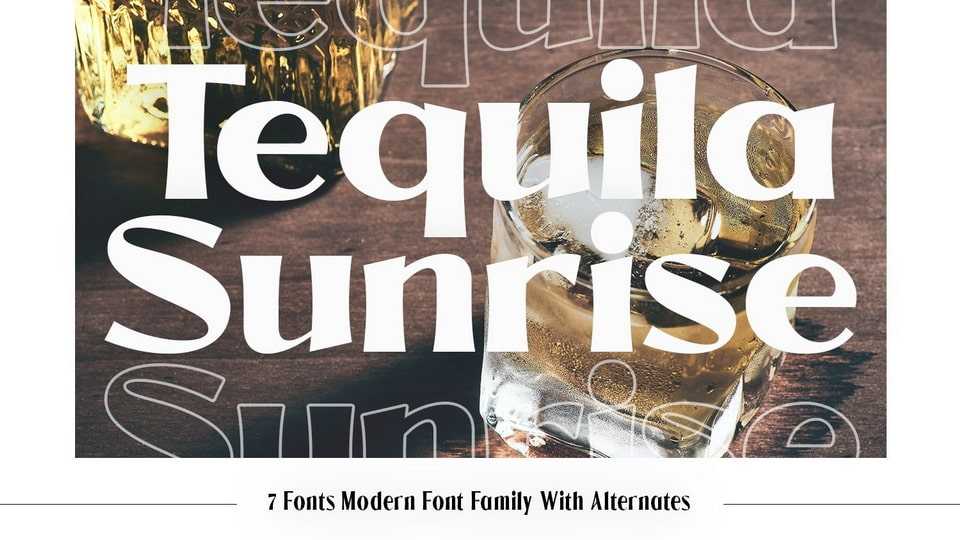
Download Tequila Sunrise font, a modern and trendy display typeface with a strong personality. Use Tequila Sunrise font for any branding, product packaging, invitation, quotes, t-shirt, label, poster, logo etc.